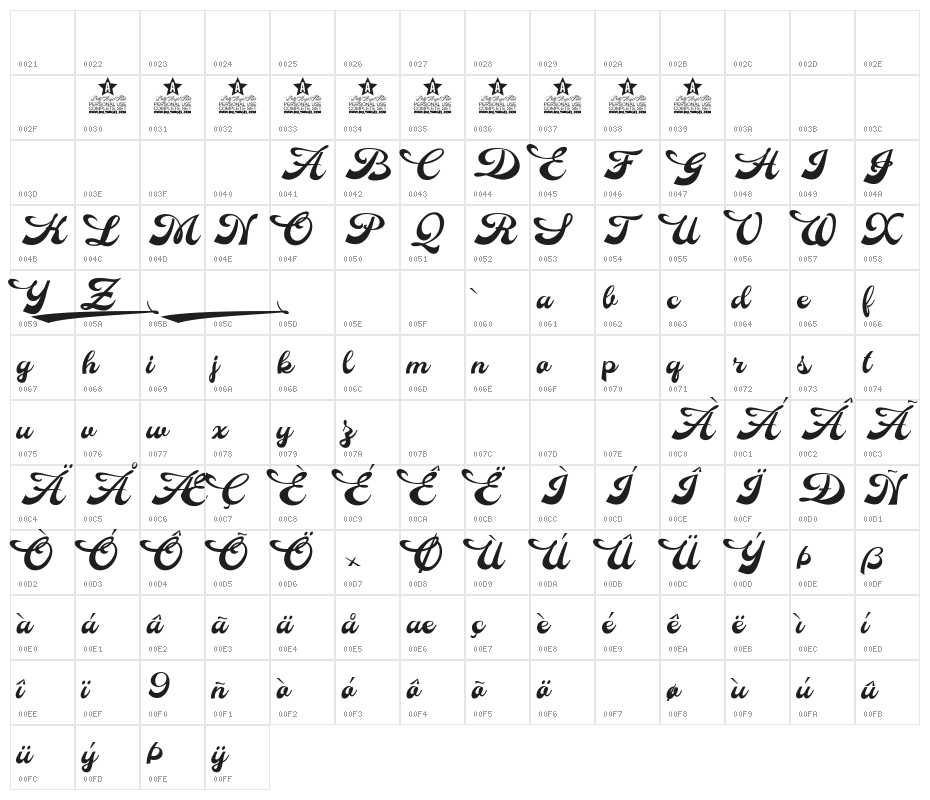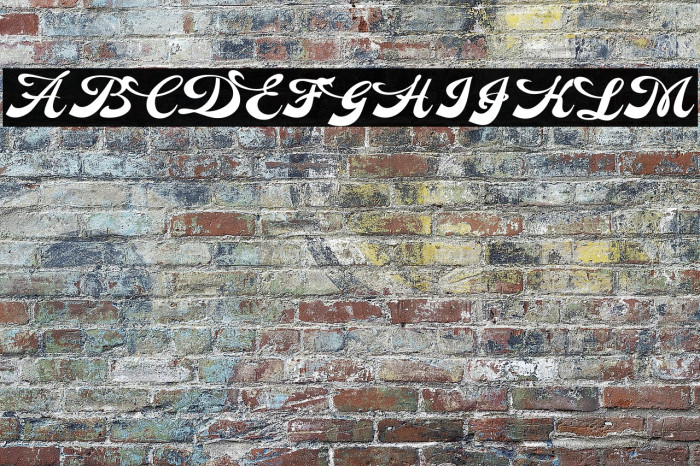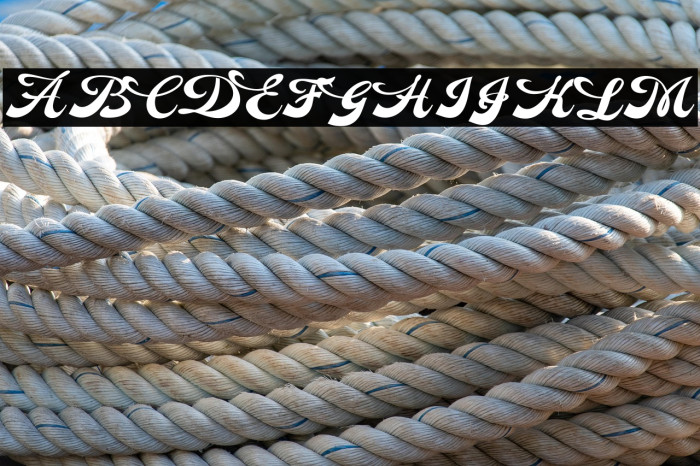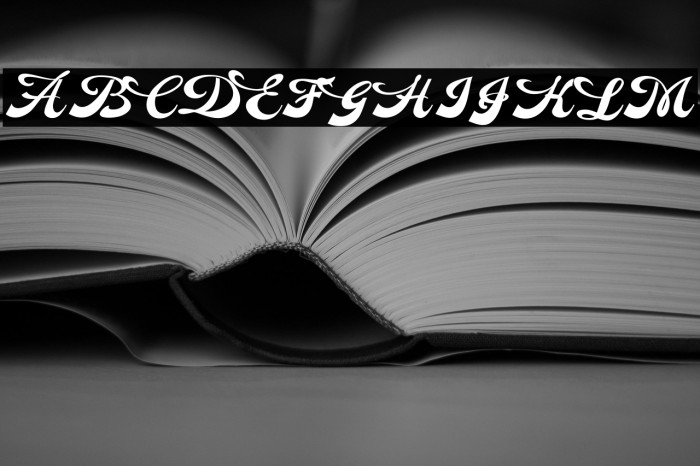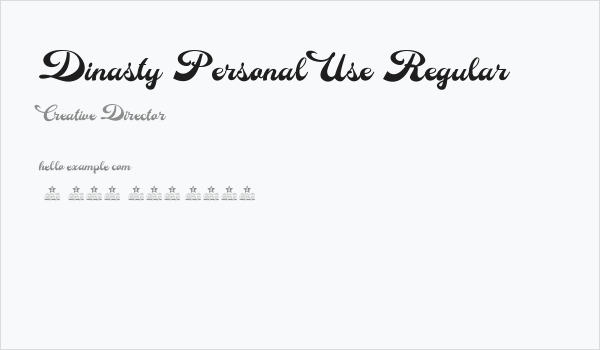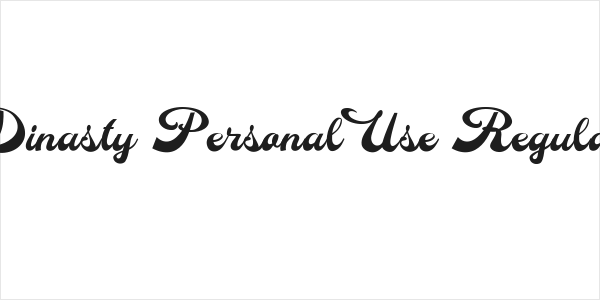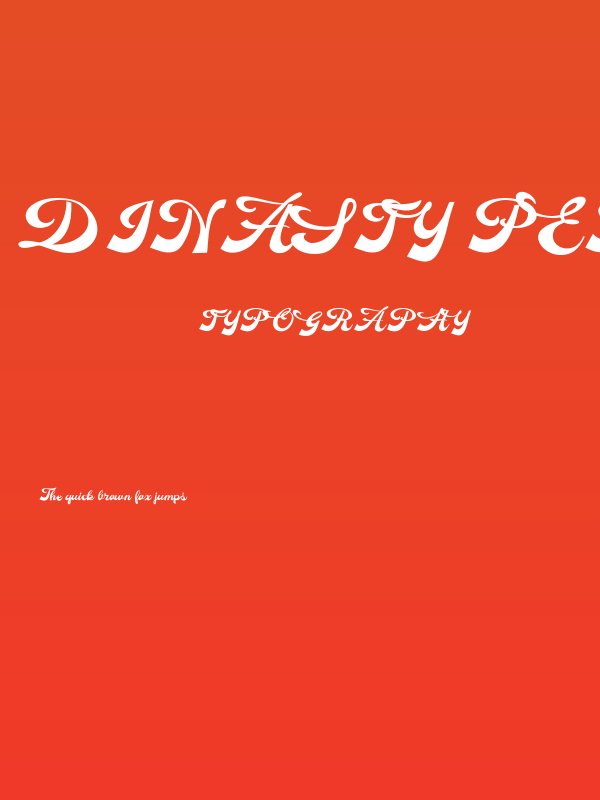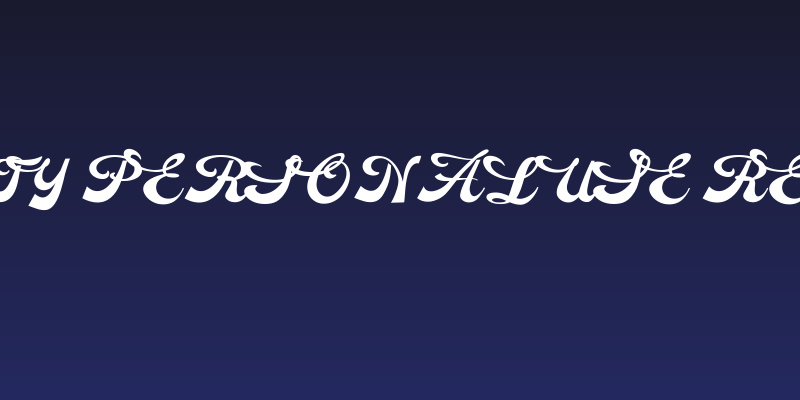
Dinasty Personal Use Regular Font
Dinasty Personal Use Regular Description
This font features a bold and elegant script style with a flowing, cursive design. The uppercase letters exhibit a dramatic flair with sweeping curves and intricate details, while the lowercase letters maintain a consistent fluidity, enhancing readability. The font's overall appearance is sophisticated and stylish, making it suitable for a variety of decorative purposes. The characters are well-spaced, ensuring clarity and legibility, even in smaller sizes. The font's unique style is both classic and modern, offering versatility for creative projects.
| Overall Style | Elegant, Decorative |
| Proposed Projects | Ideal for wedding invitations, branding, logos, and elegant stationery. |